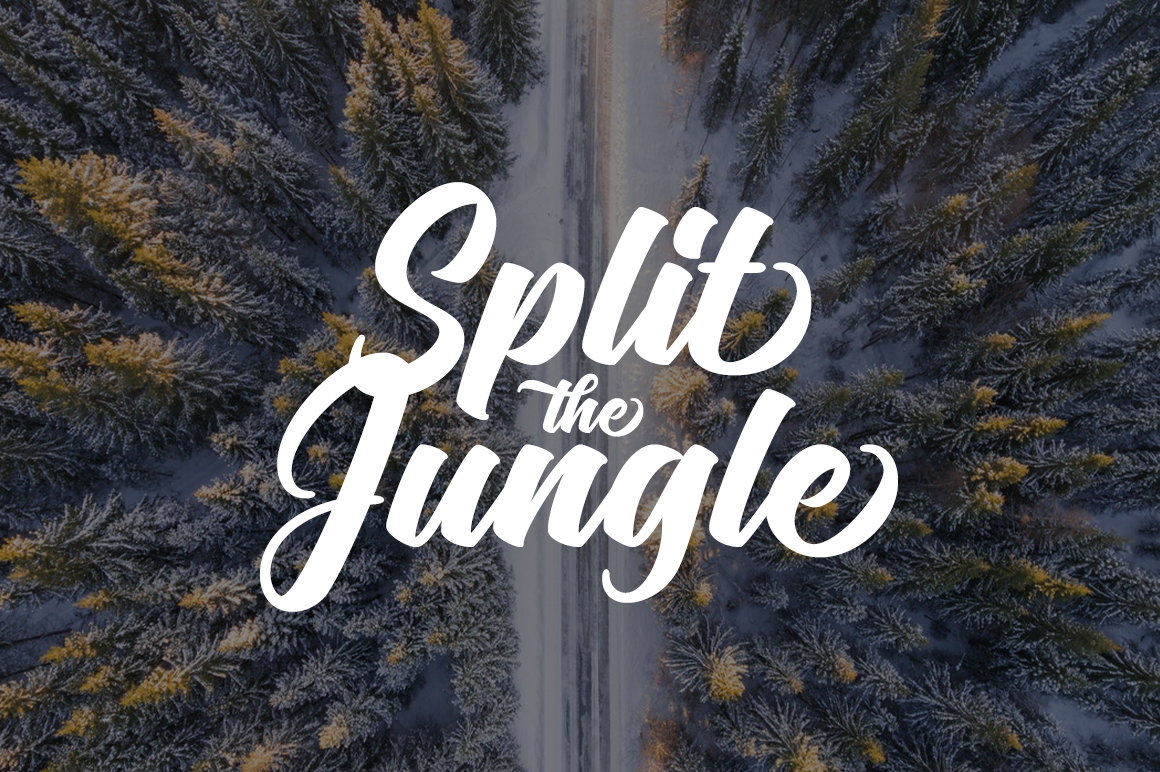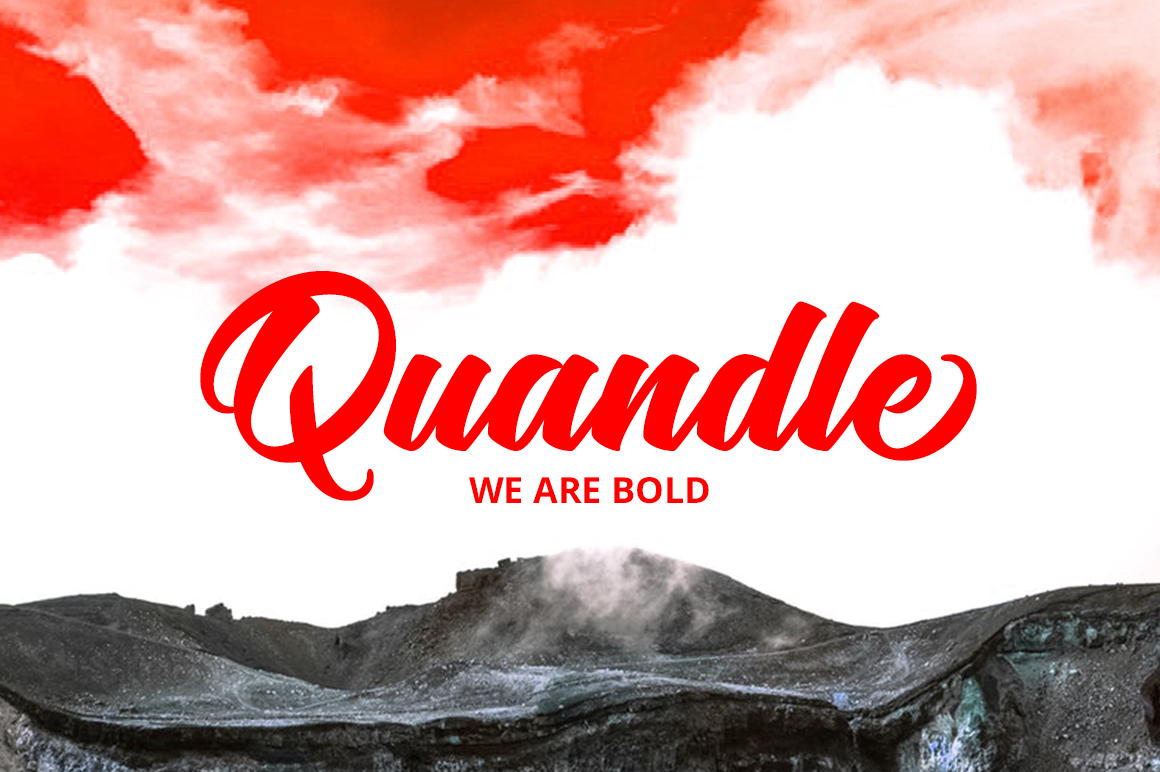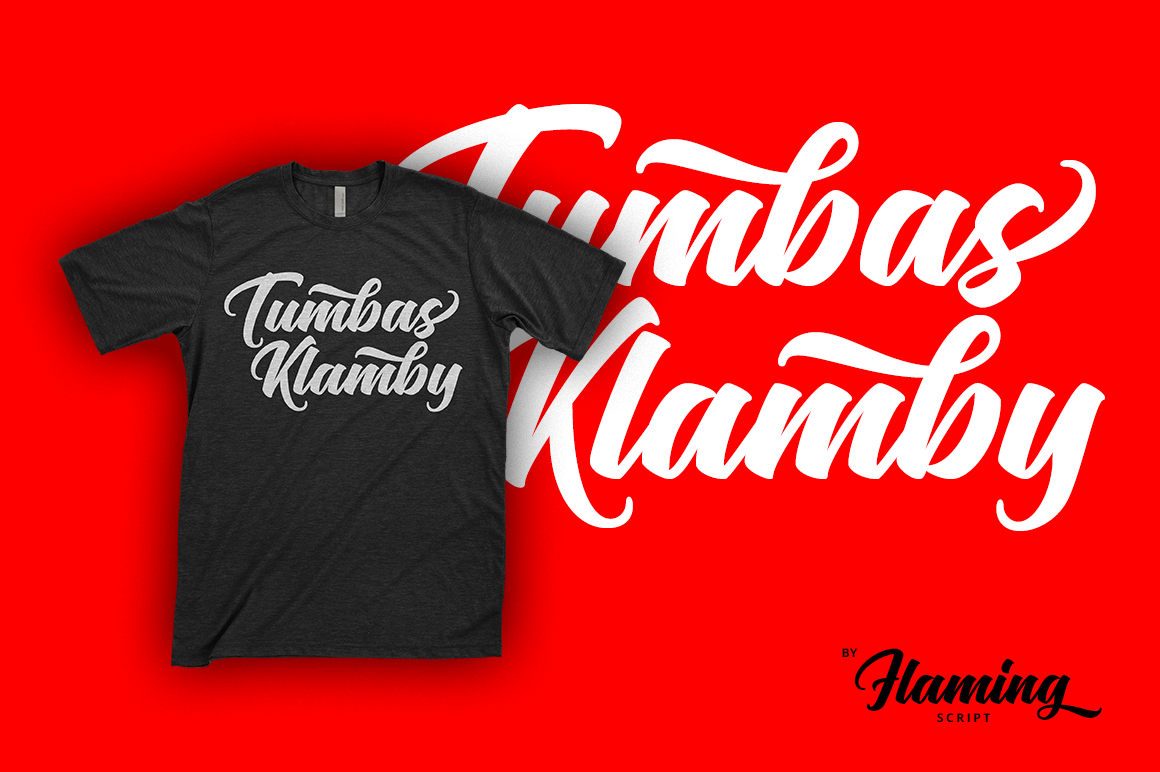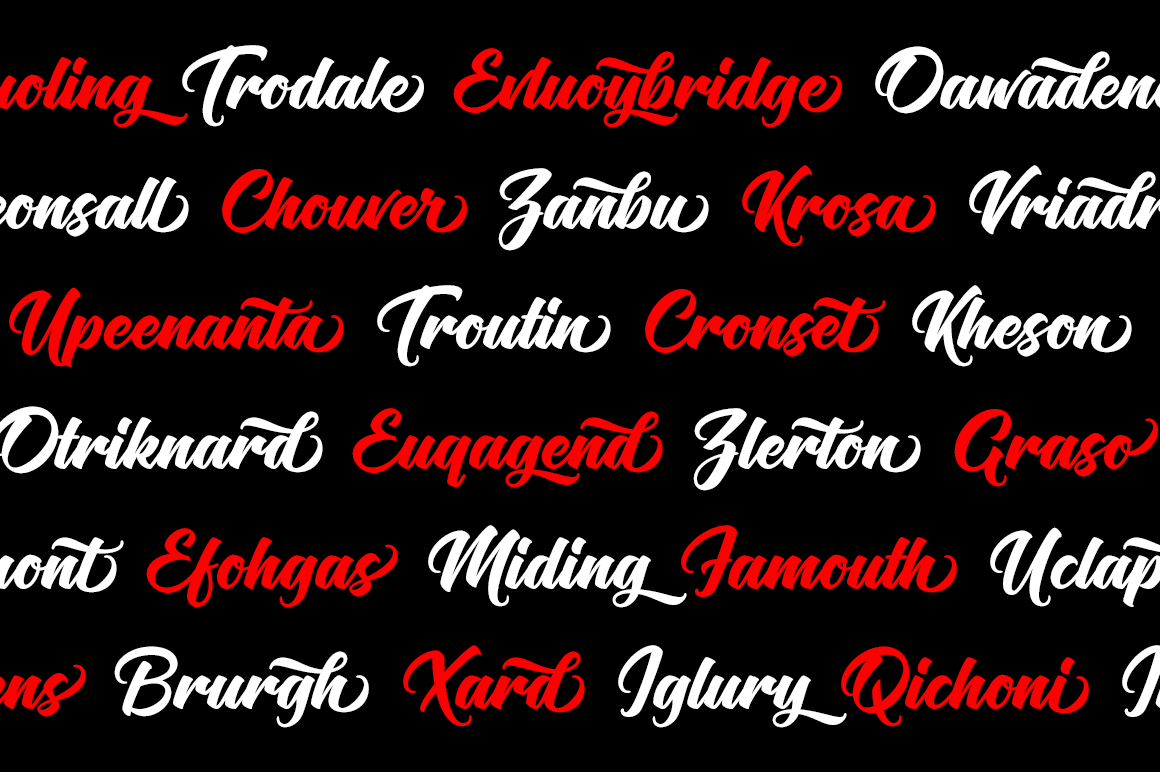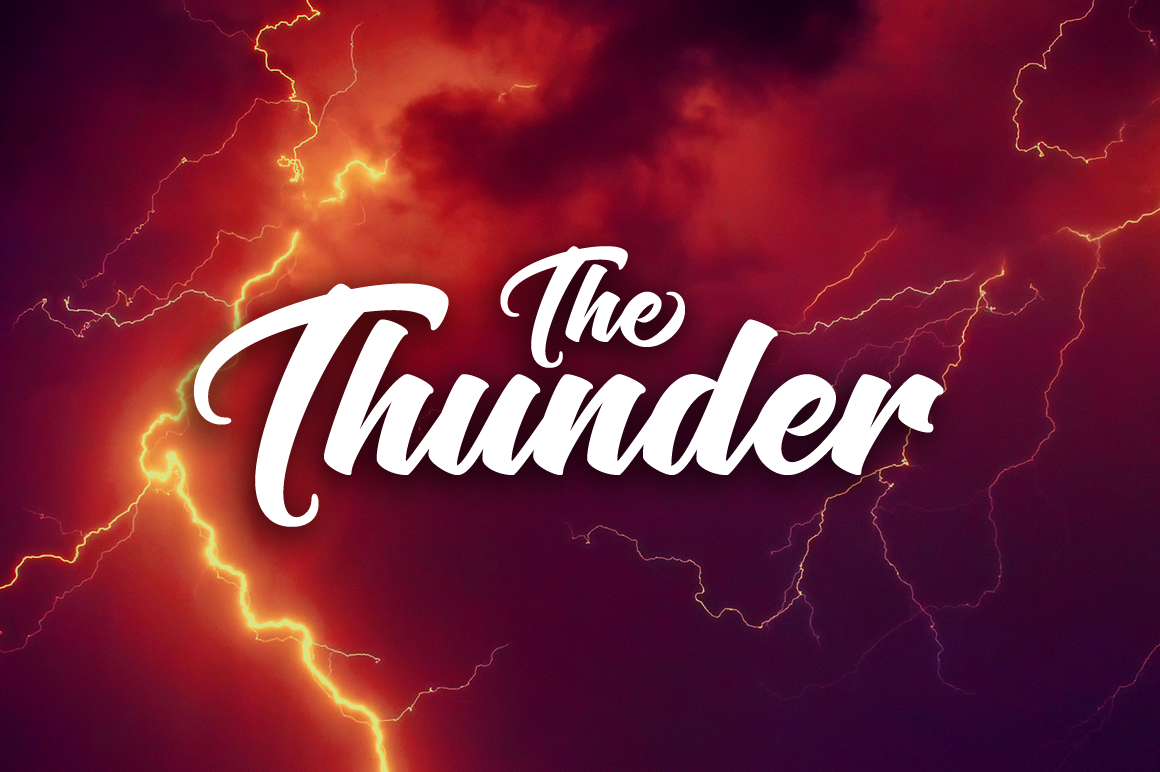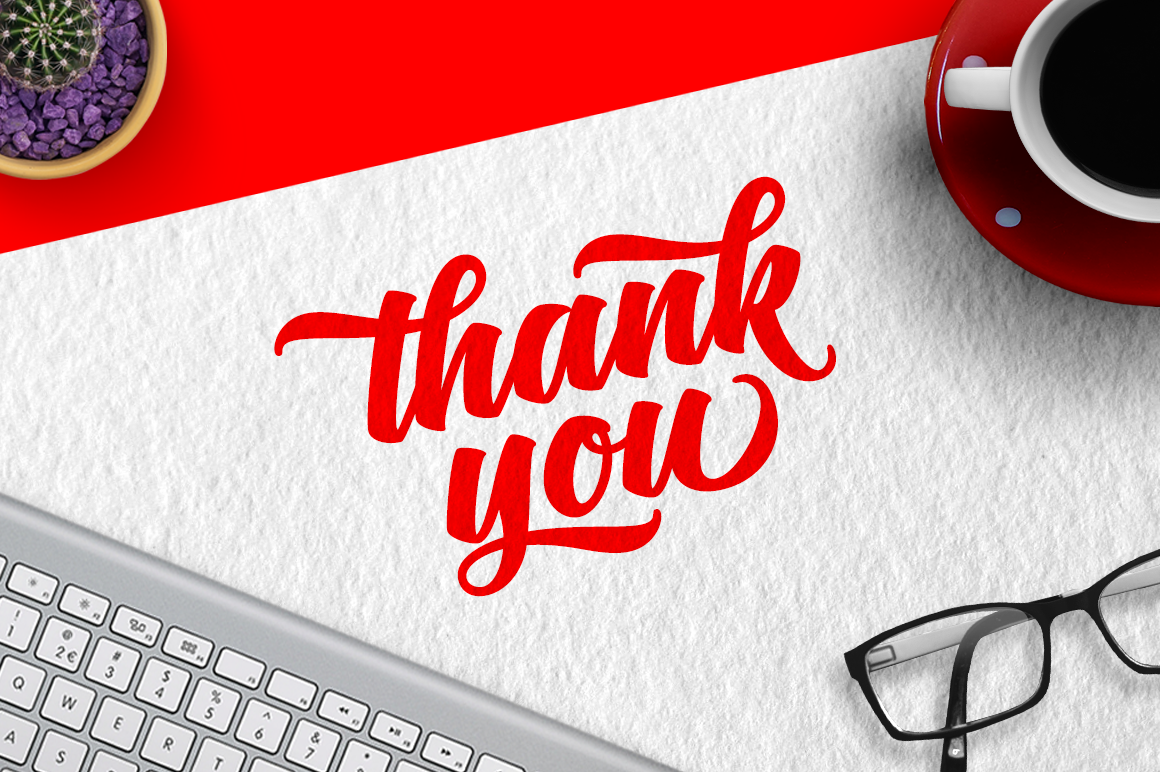
The Flaming Script Font: A Bold and Beautiful Addition to Your Design Toolkit
I’ll never forget the time I was working on a logo design project for a trendy new coffee shop. I had a clear vision of what I wanted to create, but I just couldn’t find the right font to bring it all together. That was until I stumbled upon the Flaming Script font. With its bold, stylish handwritten letters, it was the perfect solution to my design dilemma. In this article, I’ll share my experience with Flaming Script, including what I love about it, its limitations, and how to get the most out of this versatile font.
An Honest Review of Flaming Script
- ✨ Bold and stylish: Flaming Script is a true showstopper. Its bold letters are perfect for making a statement and adding a touch of personality to your designs.
- ✅ Highly legible: Despite its boldness, Flaming Script is surprisingly easy to read, making it perfect for use in logos, headlines, and other applications where clarity is key.
- 🎨 Versatile: Flaming Script can be used for a wide range of projects, from apparel and branding to packaging and more.
While Flaming Script is an amazing font, it’s not without its limitations. Here are a few things to keep in mind:
- 🤔 Overuse can be overwhelming: Because Flaming Script is so bold, it can be overwhelming if overused. Be sure to balance it with other fonts and design elements to create visual interest.
- ⚠️ Limited suitability for body text: While Flaming Script is great for headlines and logos, it’s not the best choice for body text. Its boldness can make it difficult to read in large blocks.
The Backstory of Flaming Script
Flaming Script was designed by a team of typographers who wanted to create a font that was both bold and beautiful. Inspired by traditional handwritten scripts, they set out to create a font that would add a touch of personality to any design. With its bold letters and stylish flair, Flaming Script is the perfect solution for designers looking to make a statement.
| Font Name | Flaming Script Font |
| Author | Sikifonts |
Q: What is Flaming Script?
A: Flaming Script is a bold, styling handwritten font that’s perfect for adding a touch of personality to your designs.
Q: Is Flaming Script legible?
A: Yes, despite its boldness, Flaming Script is surprisingly easy to read, making it perfect for use in logos, headlines, and other applications where clarity is key.
Q: Can I use Flaming Script for body text?
A: While Flaming Script is great for headlines and logos, it’s not the best choice for body text. Its boldness can make it difficult to read in large blocks.